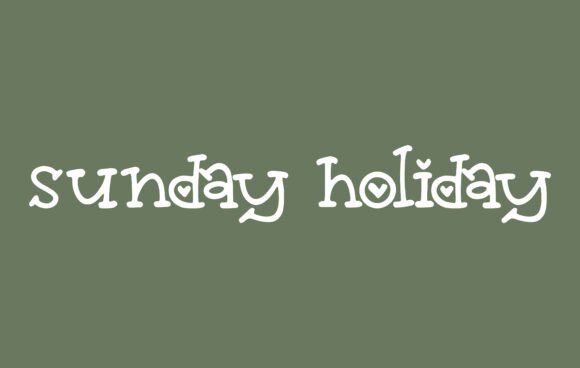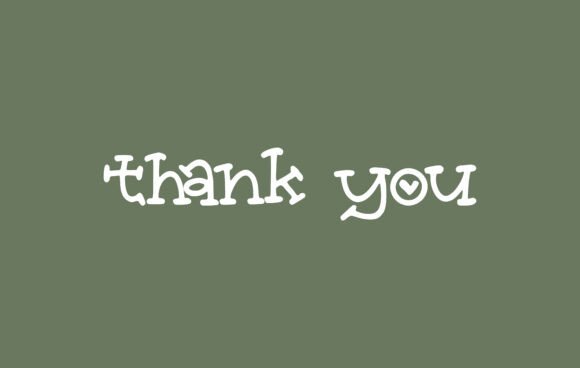
Introduction to Journi Font
Journi font is an authentic handwritten font with a romantic touch.
Key Features of Journi Font
Why Choose Journi Font?
Journi Font offers exceptional quality and versatility, making it a valuable addition to your design toolkit. Whether you’re creating for personal projects or commercial use, Journi Font delivers professional results.